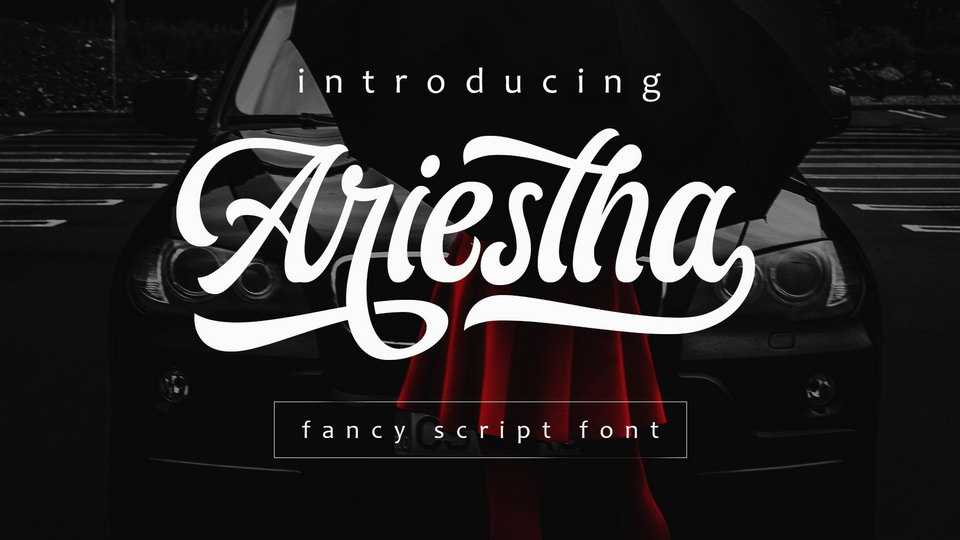
Download Ariestha font, a beautiful hand lettered script typeface with a vintage feel. With its cool vibe, Ariestha will turn any design idea into a standout.